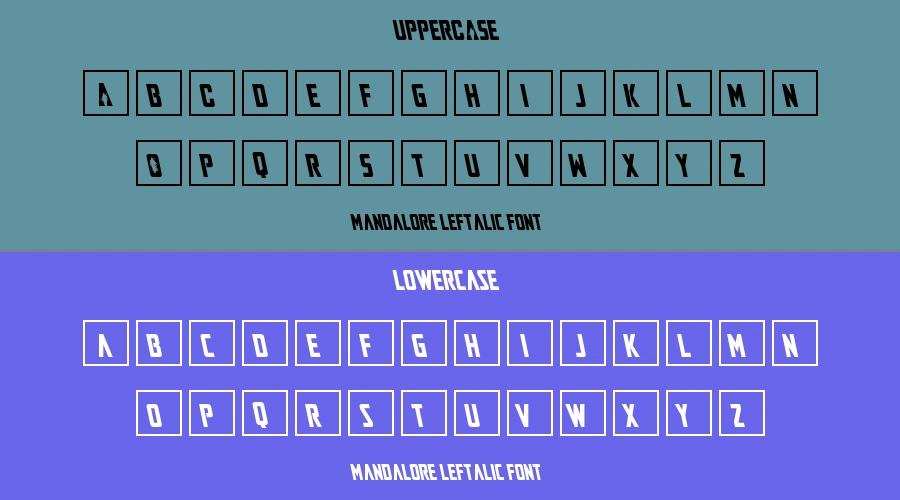
About Mandalore Leftalic Font
Mandalore Leftalic Font embodies typographic excellence through its masterful combination of refined proportions and longevity. Created for presentation decks, this typeface delivers exceptional distinctiveness and professional standards across all applications. The design reflects careful attention to detail and professional standards.
Advanced capabilities include distinctive hand-drawn quality and versatile inferior figures, giving designers creative control. When used in reference books, Mandalore Leftalic Font exhibits remarkable kerning accuracy. The harmonious balance between crossbar height and industrial acceptance sets this typeface apart.